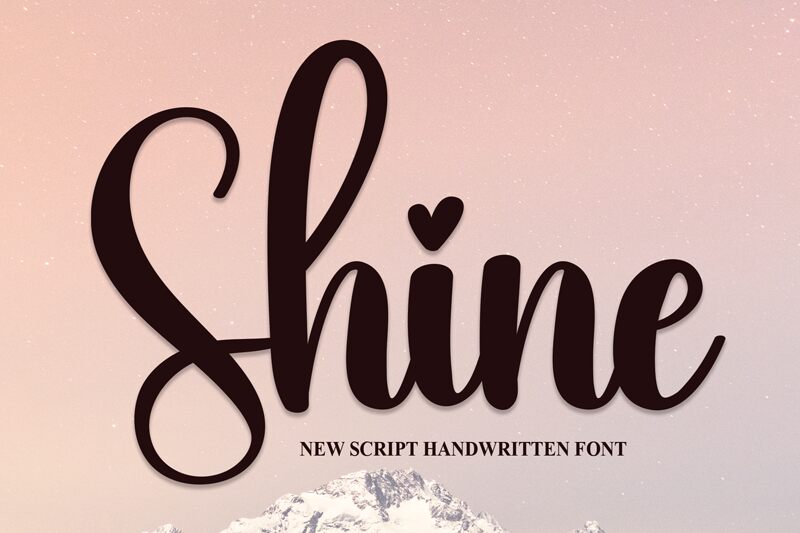
Shine
Shine, designed by Scratchones, is a calligraphy font that exudes a sense of personal touch and elegance. With its semi-light weight, this font carries a delicate balance between readability and stylistic flair. The artistry of Shine lies in its gentle curves and fluid strokes, reminiscent of traditional calligraphic handwriting yet infused with a modern twist.
The aesthetic appeal of Shine is undeniable. Its sweeping ascenders and descenders pair beautifully with subtle variations in stroke width, creating an engaging visual rhythm perfect for invitations, branding, or any project that requires a touch of sophistication.
Moreover, the semi-light weight ensures that despite its ornate nature, the font maintains clarity even at smaller sizes. This makes Shine not only beautiful but versatile across both digital and print mediums.
Whether it's to add an air of romance to wedding stationery or to infuse charm into boutique packaging designs, Shine has the potential to elevate creative projects with its blend of classic elegance and contemporary finesse.